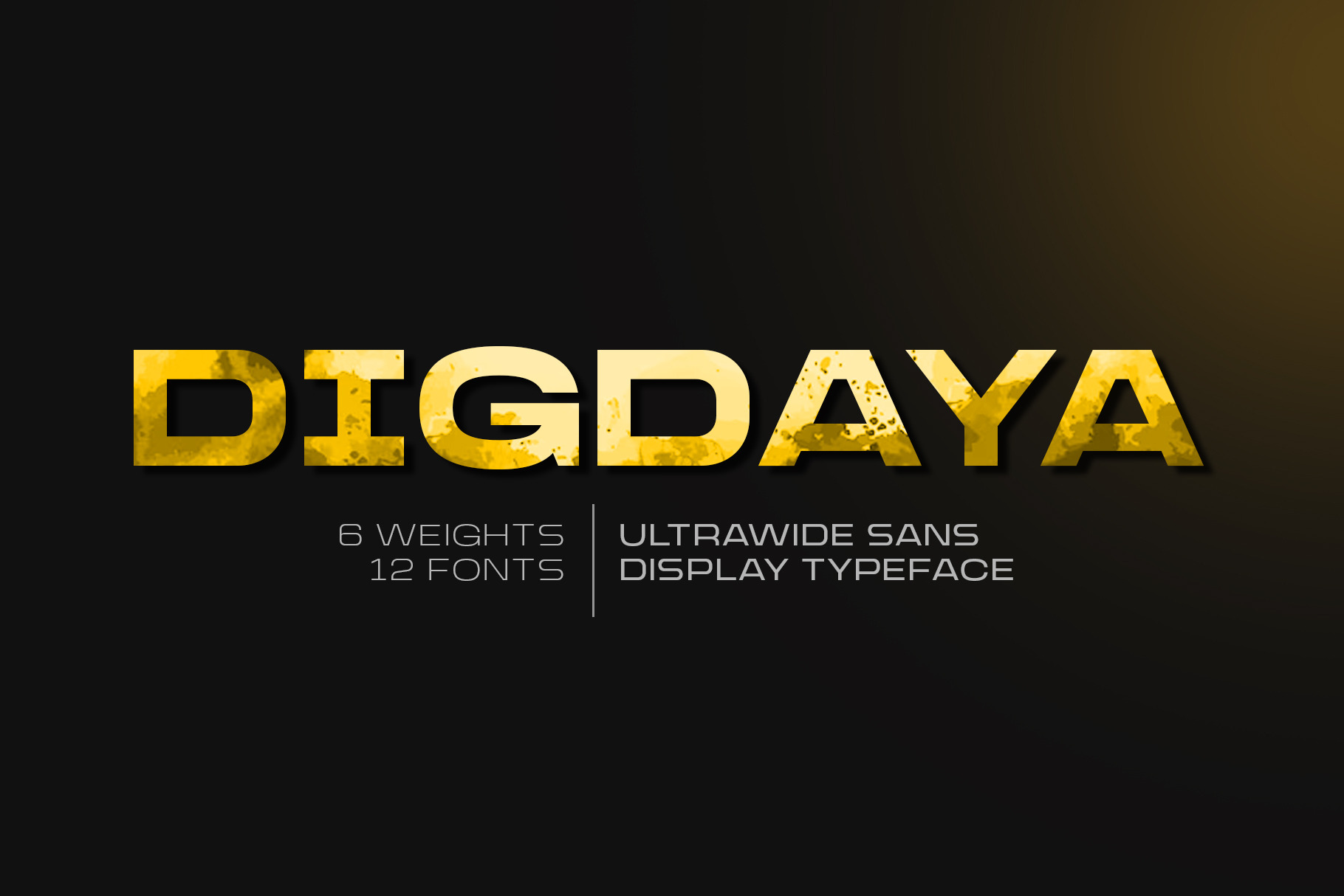
Digdaya Ultrawide Font
Digdaya is a bold sans-serif display font designed to provide a strong visual impact. It is ideal for headlines, posters, branding, and any design that demands attention because of its ultra-wide proportions and all-capital letters, which convey power, confidence, and modernism.
Digdaya provides flexibility for any project with its six adaptable weights, ranging from Thin to Black, and matching italics. Its eye-catching design and wide multilingual support enable you to produce powerful visuals for both bold, dynamic compositions and minimalist layouts.
Digdaya Complete Family
- Digdaya Thin
- Digdaya Thin Italic
- Digdaya Light
- Digdaya Light Italic
- Digdaya Regular
- Digdaya Italic
- Digdaya Medium
- Digdaya Medium Italic
- Digdaya Bold
- Digdaya Bold Italic
- Digdaya Black
- Digdaya Black Italic